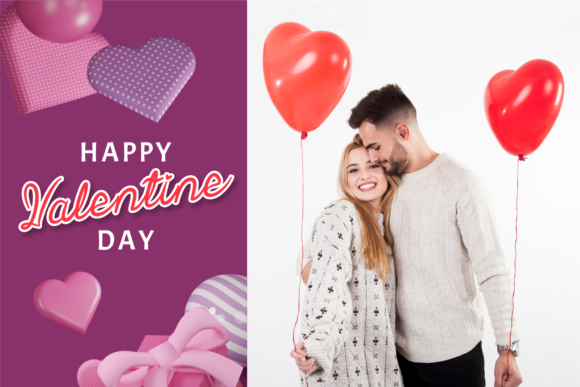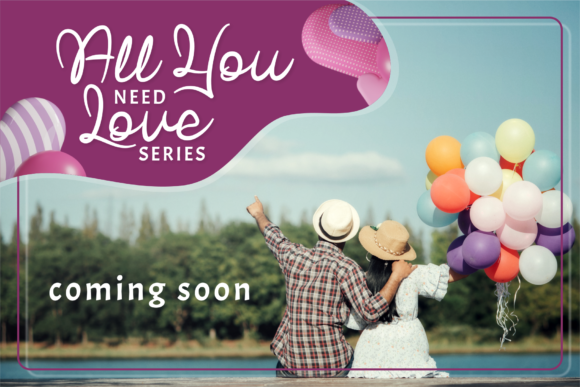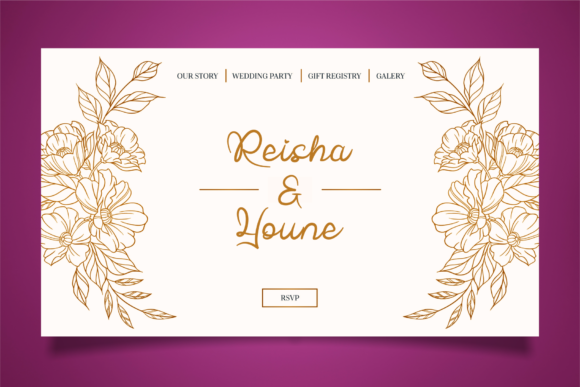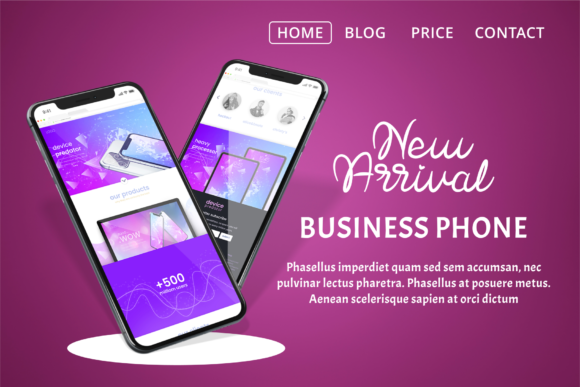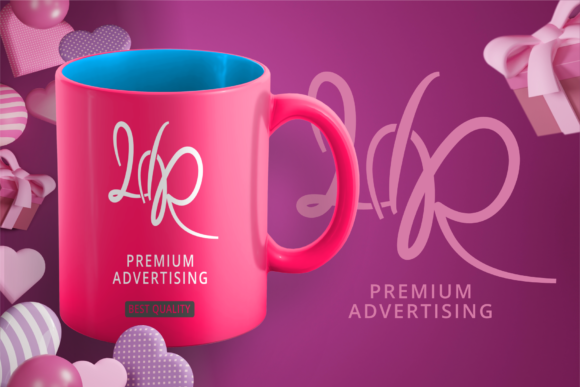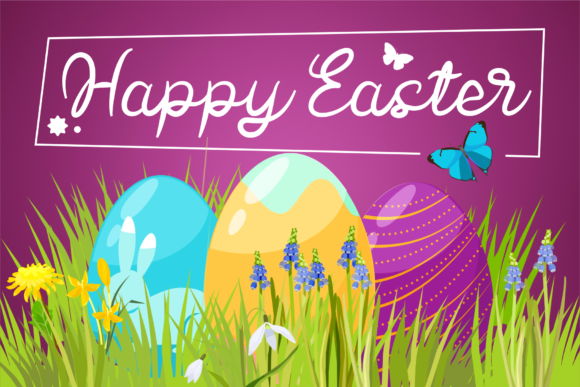
Bridal Love Font: The Perfect Choice for Elegant Designs
Are you a designer or crafter looking for a unique and elegant font to add a personal touch to your designs? Look no further than Bridal Love Font. This beautiful handwritten font is perfect for creating stunning wedding invitations, thank you cards, greeting cards, logos, and more.
What is Bridal Love Font?
Bridal Love Font is a one-of-a-kind, handwritten font that exudes elegance and sophistication. Its unique and flowing script makes it perfect for designs that require a personal and romantic touch. Whether you’re creating wedding stationery, branding materials, or simply want to add a special touch to your crafts, Bridal Love Font is the perfect choice.
Features of Bridal Love Font
- Unique and Elegant Design: Bridal Love Font features a beautiful, handwritten script that is both elegant and sophisticated.
- Versatile: This font can be used on a variety of designs, including wedding invitations, thank you cards, greeting cards, logos, and more.
- Personalized Style: Bridal Love Font adds a personal touch to your designs, making them stand out from the crowd.
Uses for Bridal Love Font
Bridal Love Font is perfect for a variety of designs, including:
- Wedding Invitations: Create beautiful and elegant wedding invitations that set the tone for the big day.
- Thank You Cards: Add a personal touch to your thank you cards and make them extra special.
- Greeting Cards: Create stunning greeting cards for any occasion, from birthdays to anniversaries.
- Logos: Use Bridal Love Font to create a unique and elegant logo for your business or brand.
- Crafts: Add a personal touch to your crafts, such as scrapbooking, journaling, and more.
Why Choose Bridal Love Font?
There are many fonts available, but Bridal Love Font stands out from the rest. Here are just a few reasons why:
- Unique Design: Bridal Love Font features a unique and elegant design that will make your designs stand out.
- High-Quality: This font is high-quality and will look beautiful on any design.
Tips for Using Bridal Love Font
Here are a few tips for using Bridal Love Font:
- Use it Sparingly: Use Bridal Love Font sparingly to add a personal touch to your designs.
- Pair it with Other Fonts: Pair Bridal Love Font with other fonts to create a unique and interesting design.
Bridal Love Font is a unique and elegant handwritten font that is perfect for designers and crafters looking to add a personal touch to their designs. With its flowing script and elegant design, it’s perfect for wedding invitations, thank you cards, greeting cards, logos, and more. Whether you’re a professional designer or a crafter, Bridal Love Font is a great choice for any project.